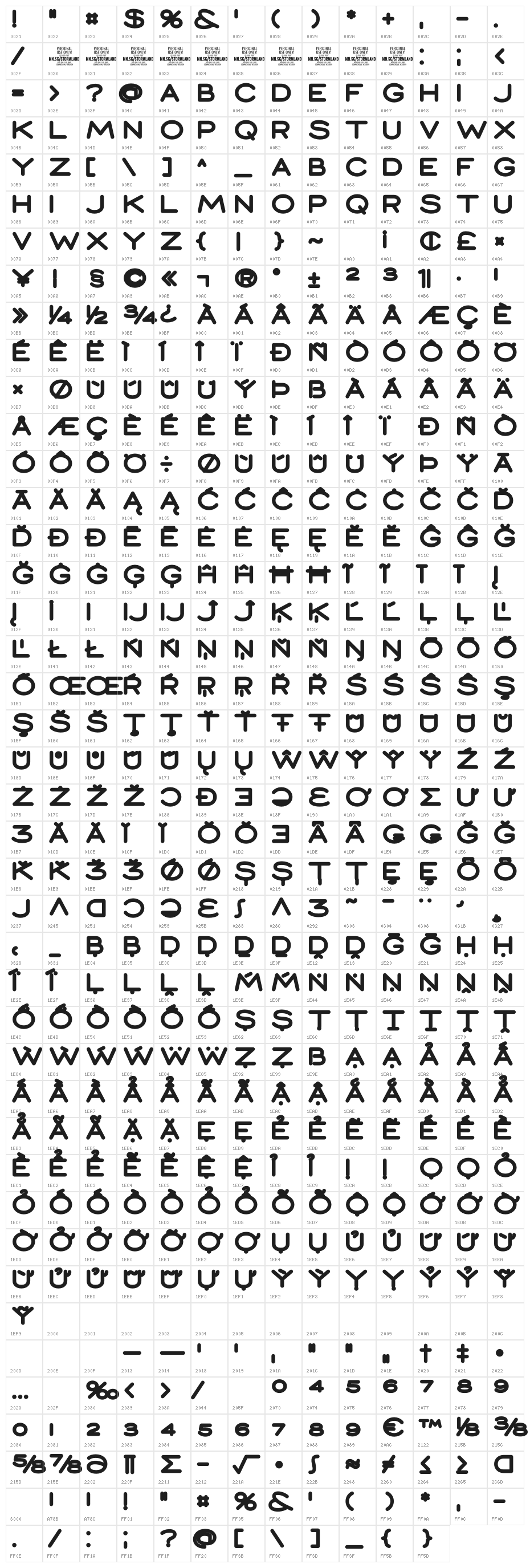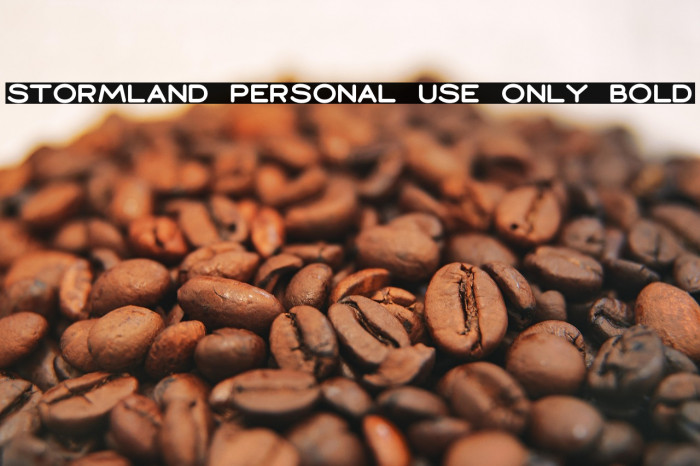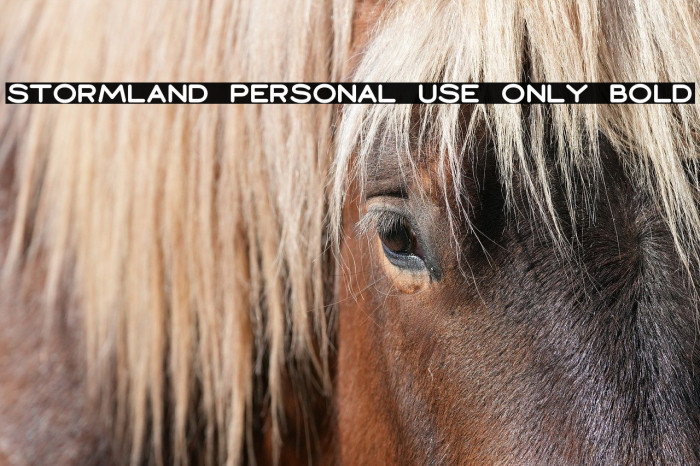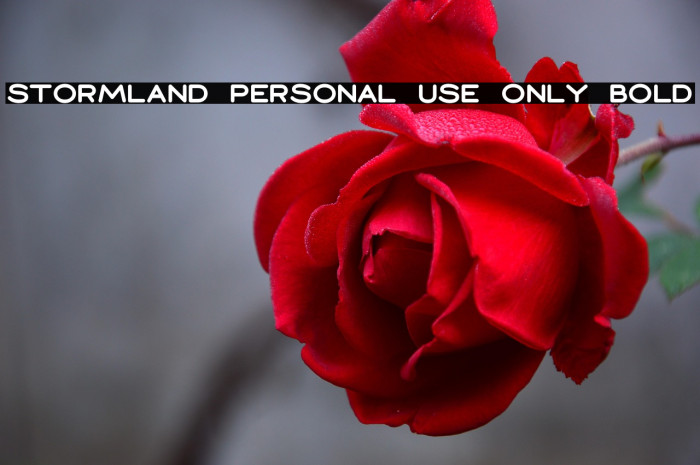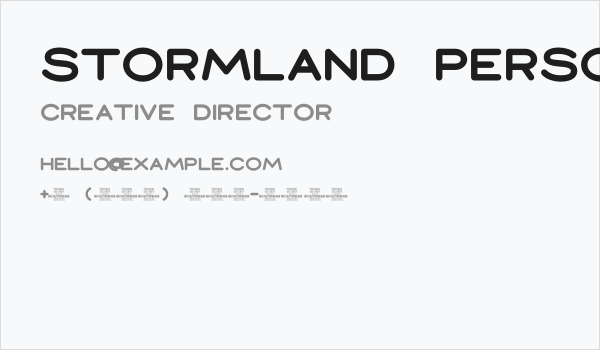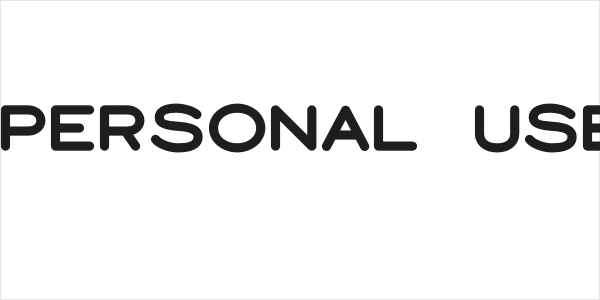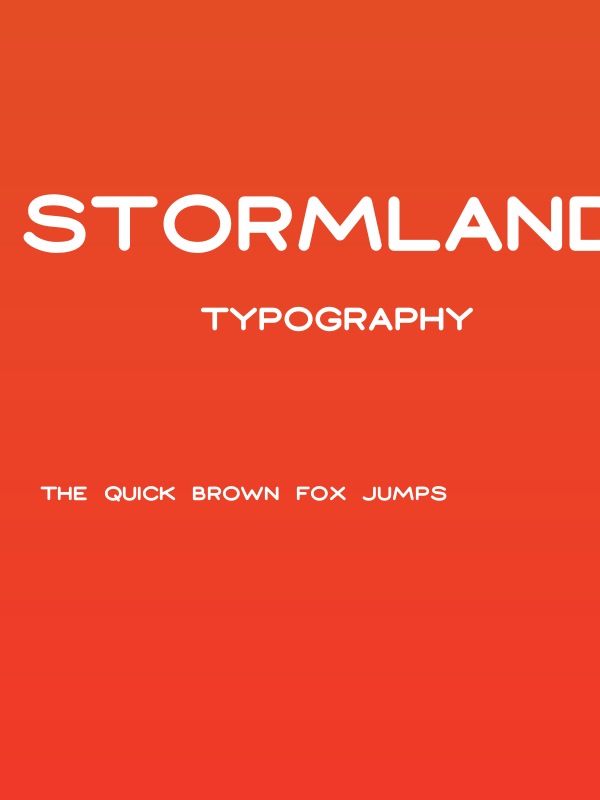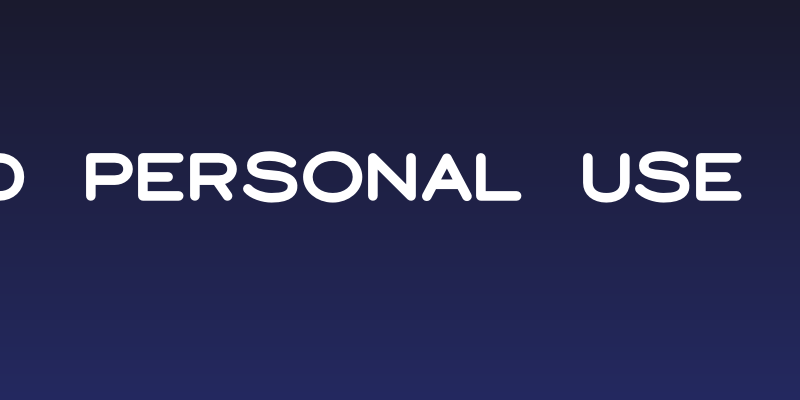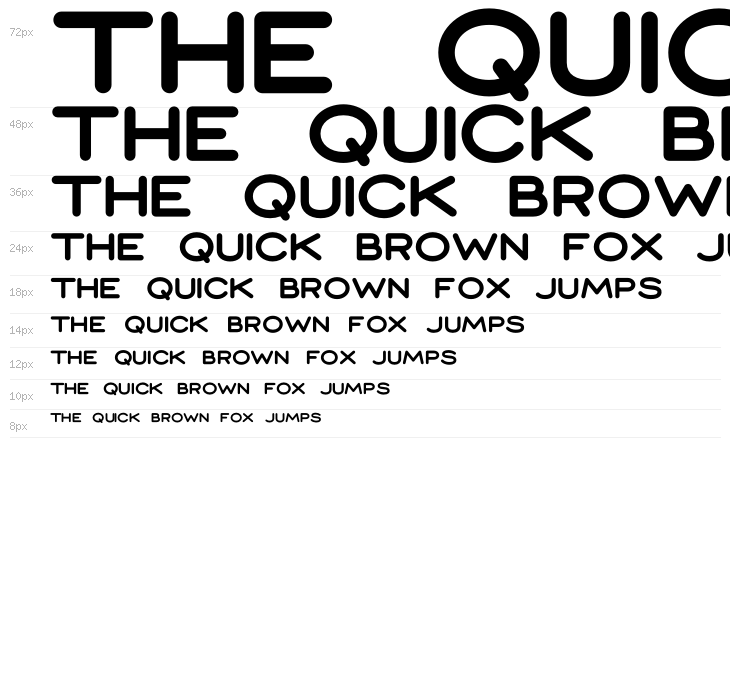
Stormland PERSONAL USE ONLY Bold Font
Stormland PERSONAL USE ONLY Bold Description
This font features a bold and rounded style with smooth curves and a modern aesthetic. The characters are uniform in width, providing a clean and cohesive look. The uppercase letters are prominent and well-defined, while the lowercase letters maintain the same boldness, ensuring readability. The numerals and special characters follow the same design principles, making them easily distinguishable. This font's overall appearance is sleek and contemporary, suitable for various design applications.
Proposed ProjectsIdeal for branding, headlines, posters, and digital media where a modern and bold statement is needed.